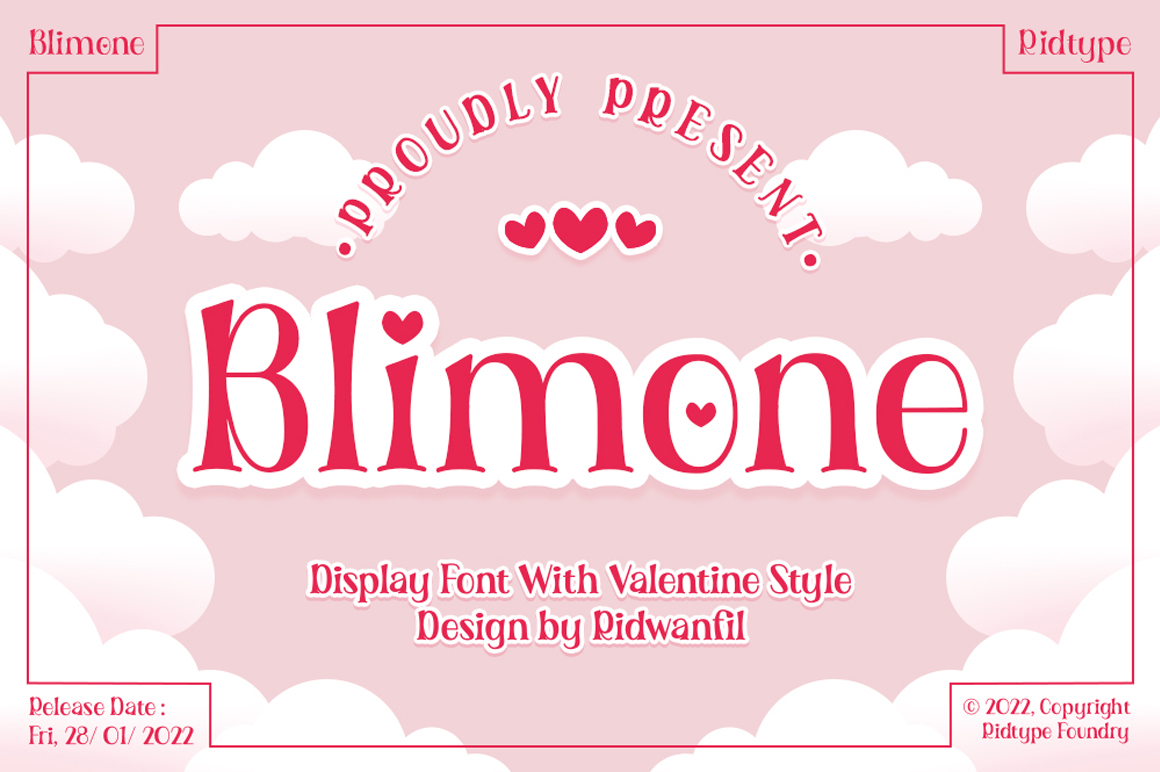
Blimone Free Font
Blimone Free Font embodies a delightful, tidy, and captivatingly crafted display font. Ideal for Valentine’s themes, crafting projects, and an array of design concepts, this font seamlessly integrates into your favored creative endeavors, breathing life into each one with its charming presence. This free typeface was designed by a talented Ridwan Fadilah. If you like it don’t forget to check out the full version.